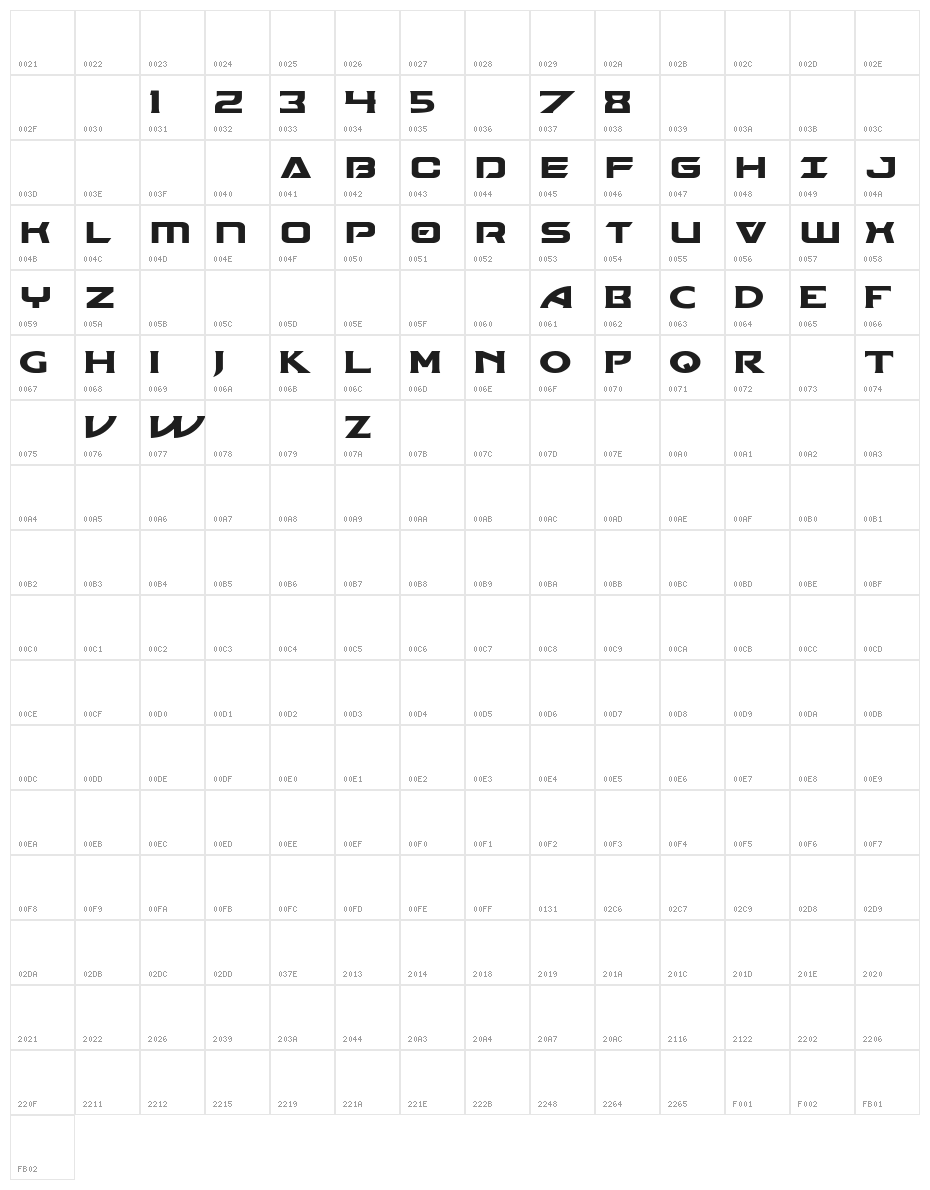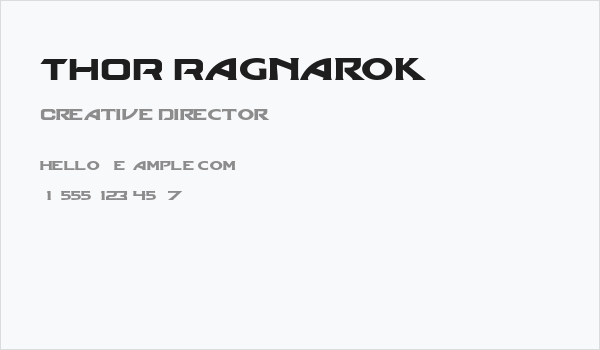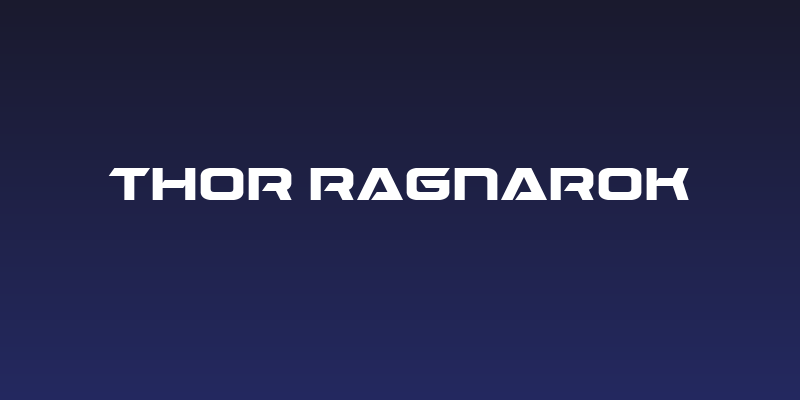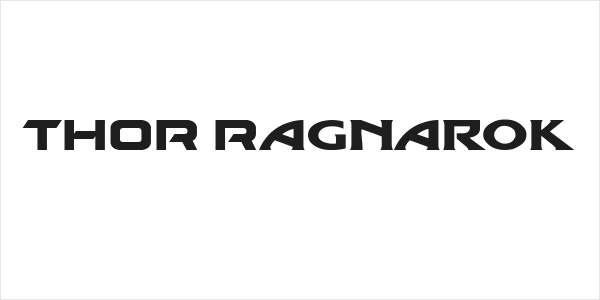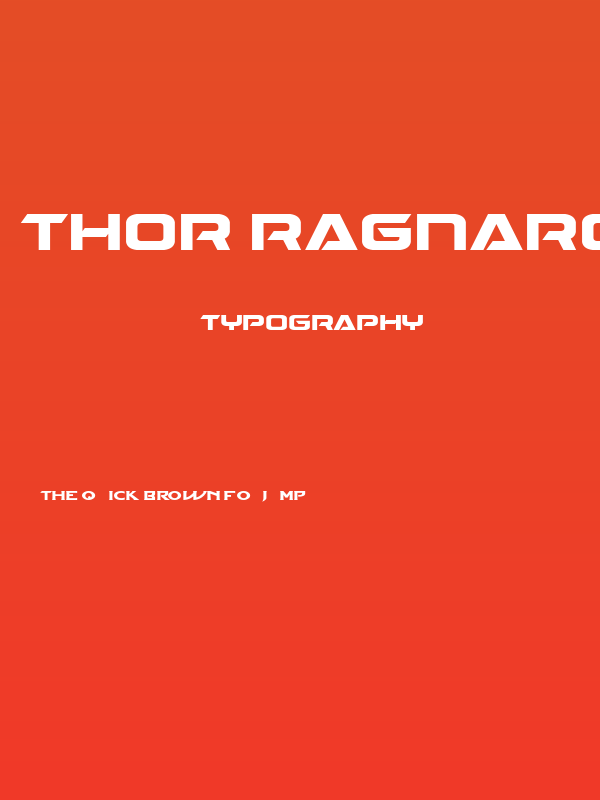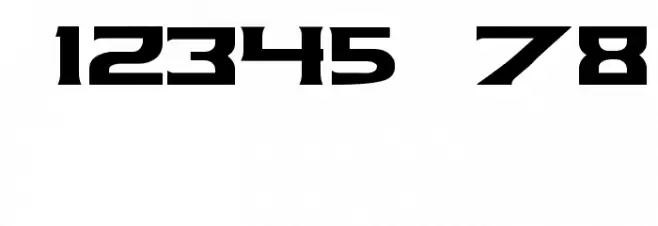
THOR Ragnarok Font
THOR Ragnarok Description
This font features a bold and angular design, reminiscent of futuristic or sci-fi themes. The characters are constructed with sharp edges and geometric shapes, giving them a strong and dynamic appearance. The uppercase letters are particularly striking, with a consistent height and width that create a uniform look. The lowercase letters maintain the same angular style, ensuring cohesion across different text cases. Numbers are equally bold and follow the same design principles, making them easily readable while maintaining the overall aesthetic. This font is ideal for projects that require a modern and impactful look, such as movie posters, video game titles, or branding for tech companies.
| Overall Style | Futuristic |
| Proposed Projects | Ideal for movie posters, video game titles, tech branding, and sci-fi themed designs. |